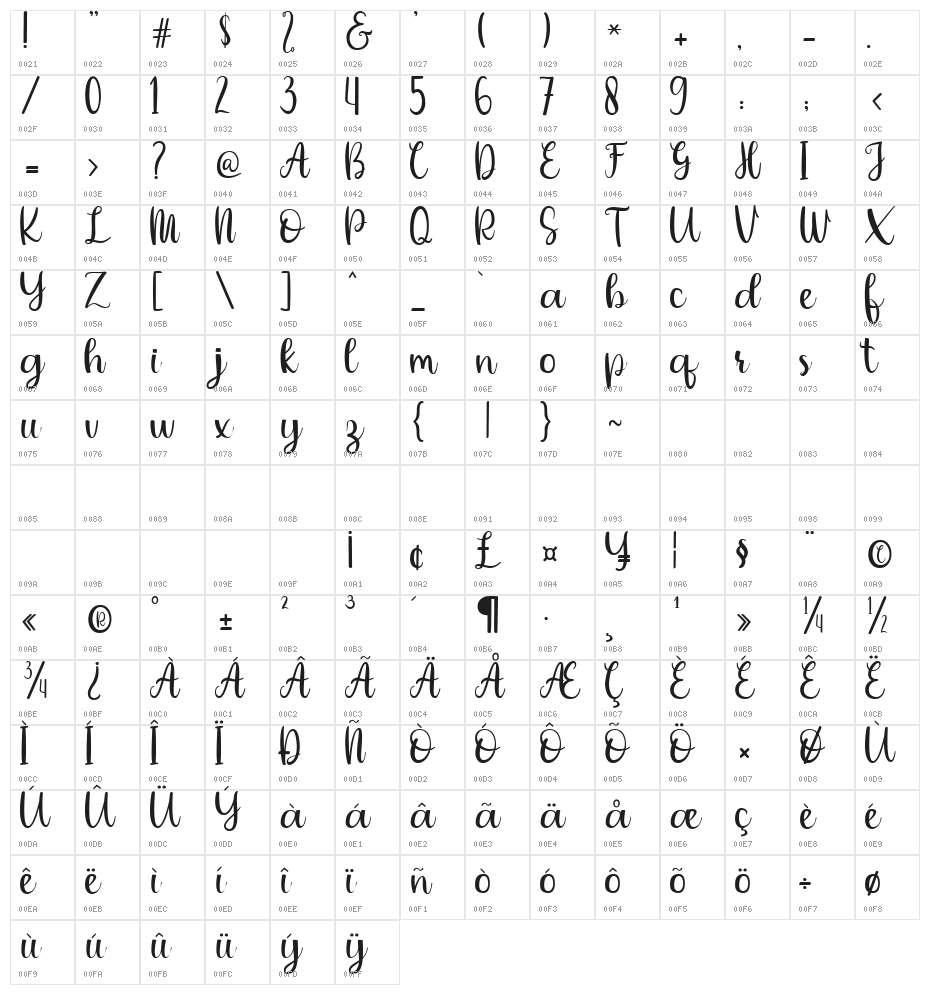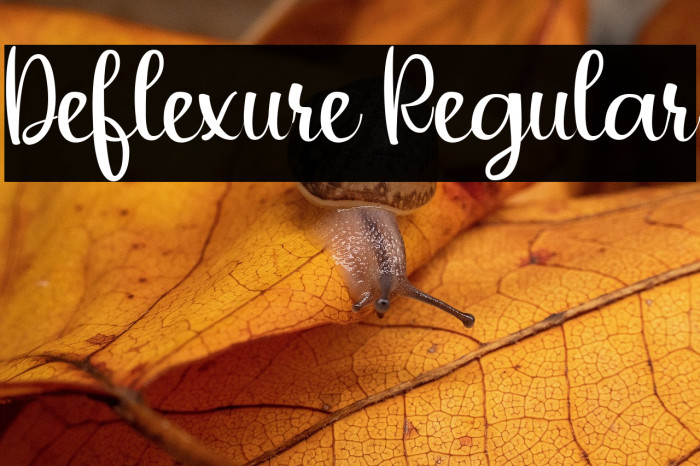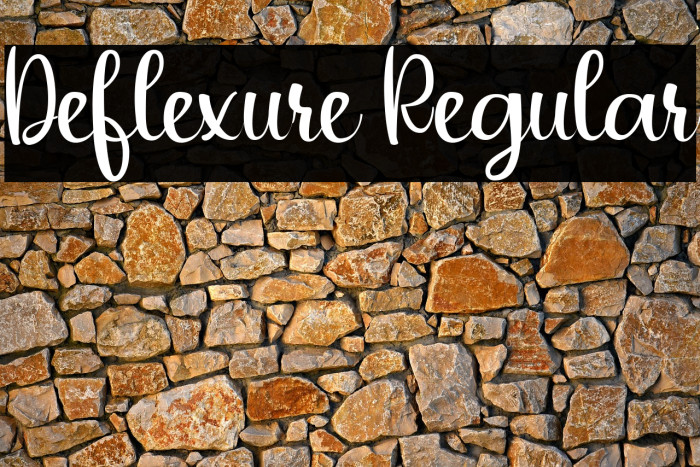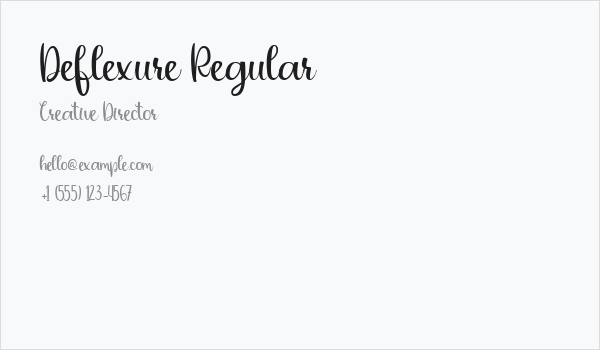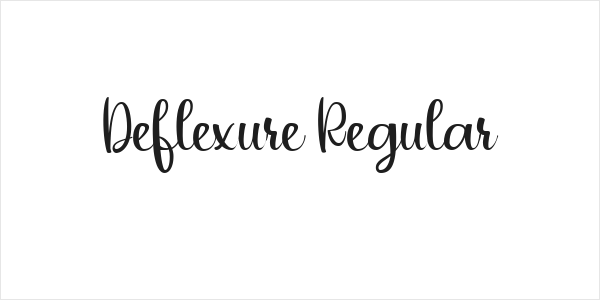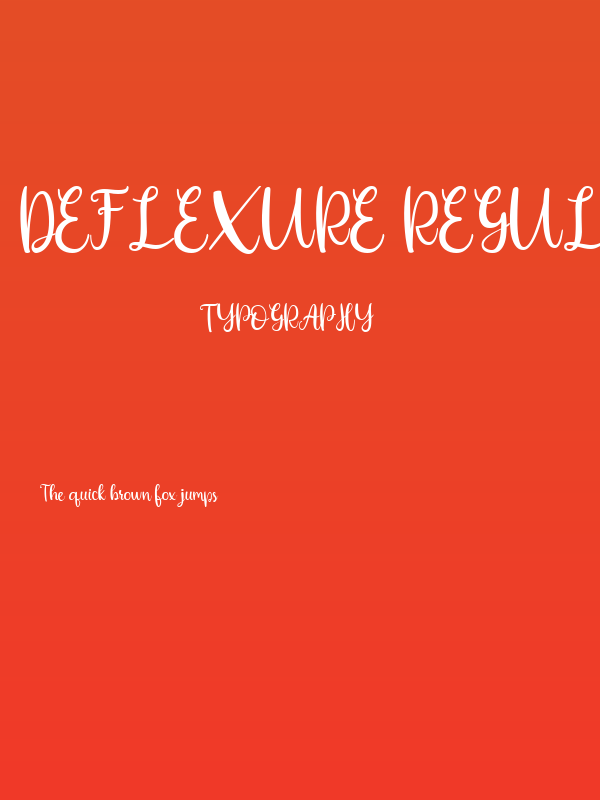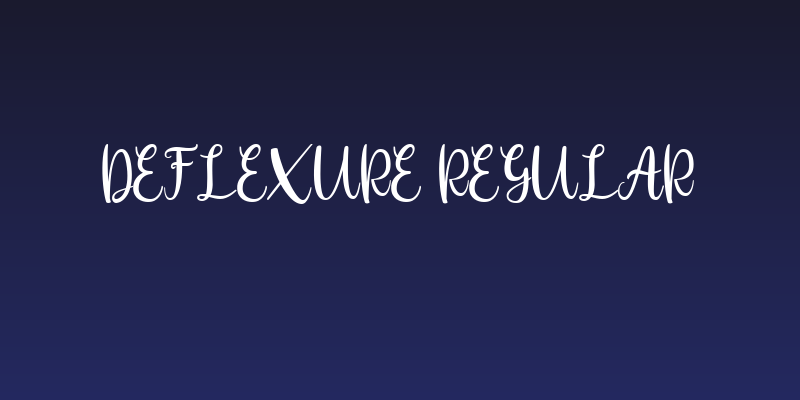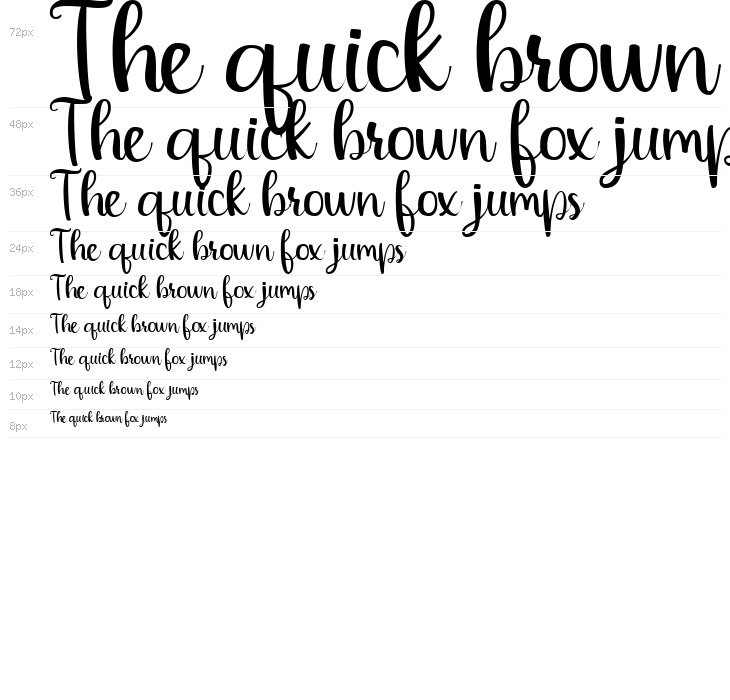
Deflexure Regular Font
Deflexure Regular Description
This font features a lively and expressive script style with a playful and modern flair. The characters are interconnected with smooth, flowing strokes that give it a handwritten appearance. The uppercase letters are bold and dynamic, while the lowercase letters maintain a consistent rhythm and elegance. The numerals are distinct and easy to read, complementing the overall style. Special characters are creatively integrated, enhancing the font's versatility. This font is ideal for projects that require a personal touch or a sense of creativity and spontaneity.
| Use Case | Logos, Headlines, Decorative text |
| Proposed Projects | Ideal for invitations, greeting cards, branding, social media graphics, and creative projects. |